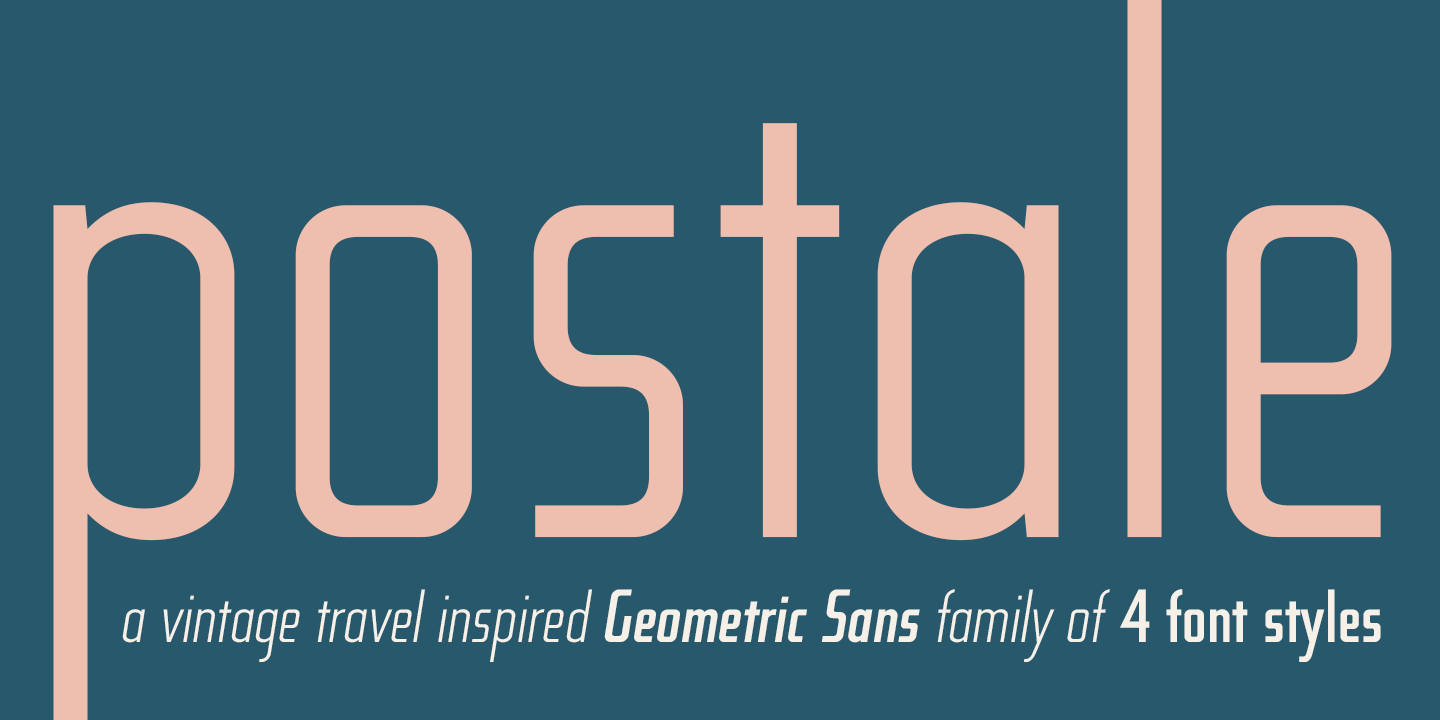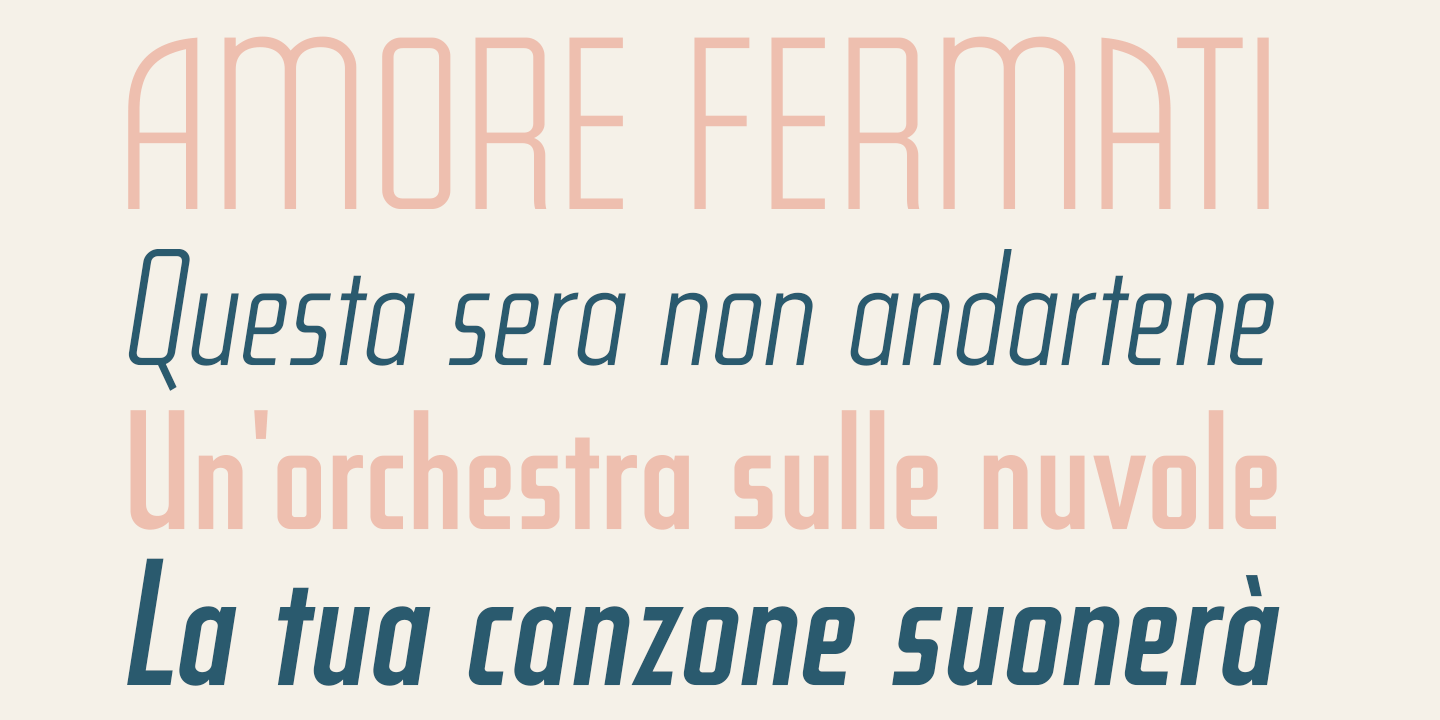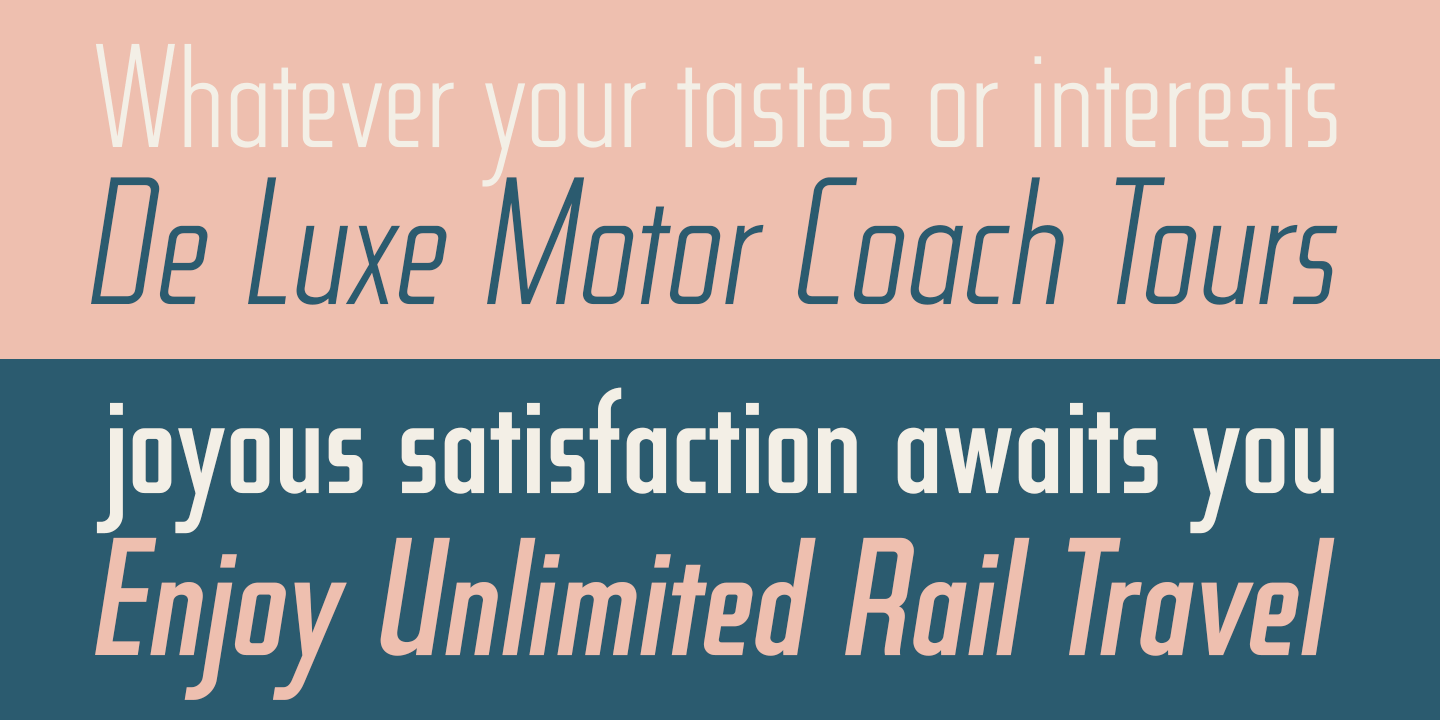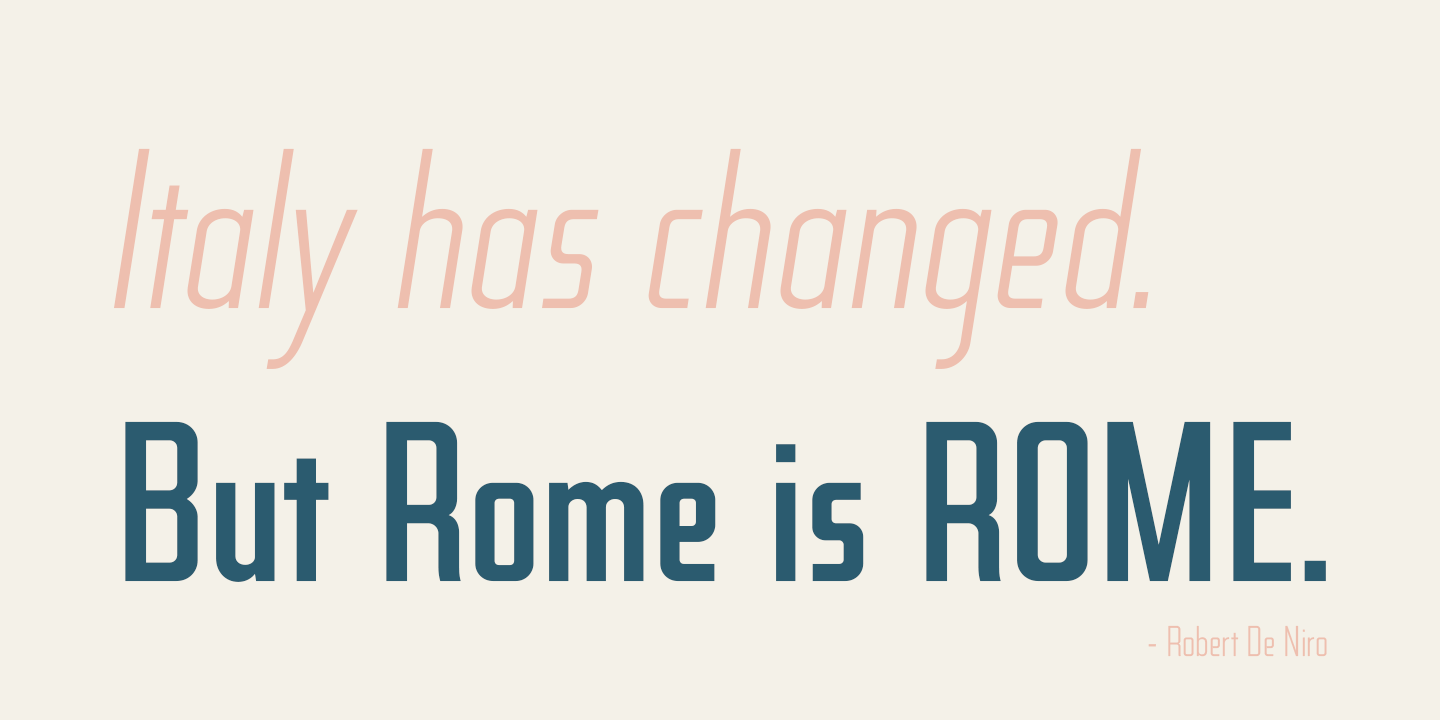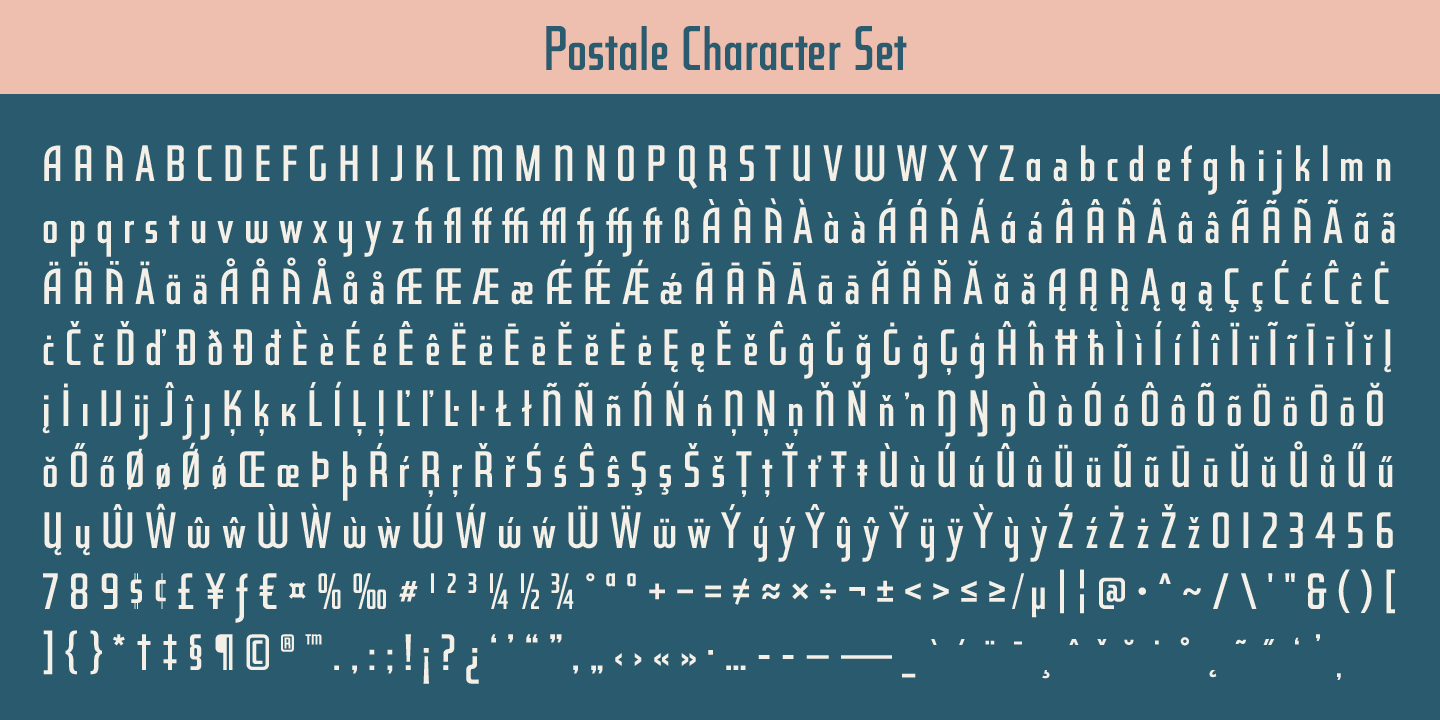
Postale
Font Family by Dear Alison
I recently came across an old travel journal I'd misplaced, and in it was a really rough sketch of an Italian post office. The sign lettering caught my eye while flipping through the pages, and while not my forte, I thought I'd take my stab at recreating sans-serif lettering as a font.
The Postale family recaptures that old post signage and the vintage flair that appeals to me. A little reminiscing is always a good thing.
You'll find the Stylistic Alternates feature changes up the retro styled letters to a more modern sans serif styling for a handful of letterforms, if the vintage style of certain letters isn't your cup of tea.